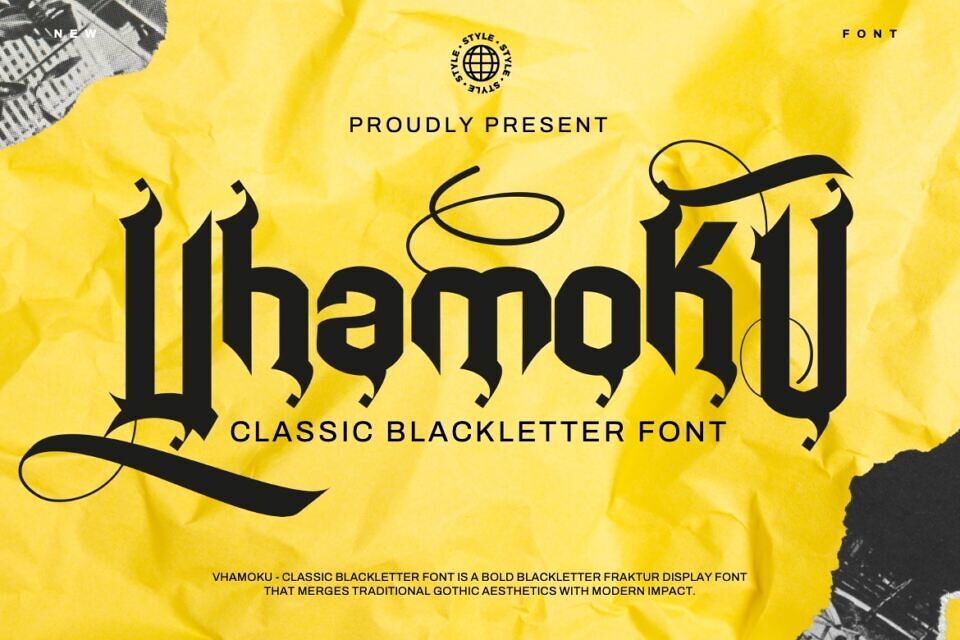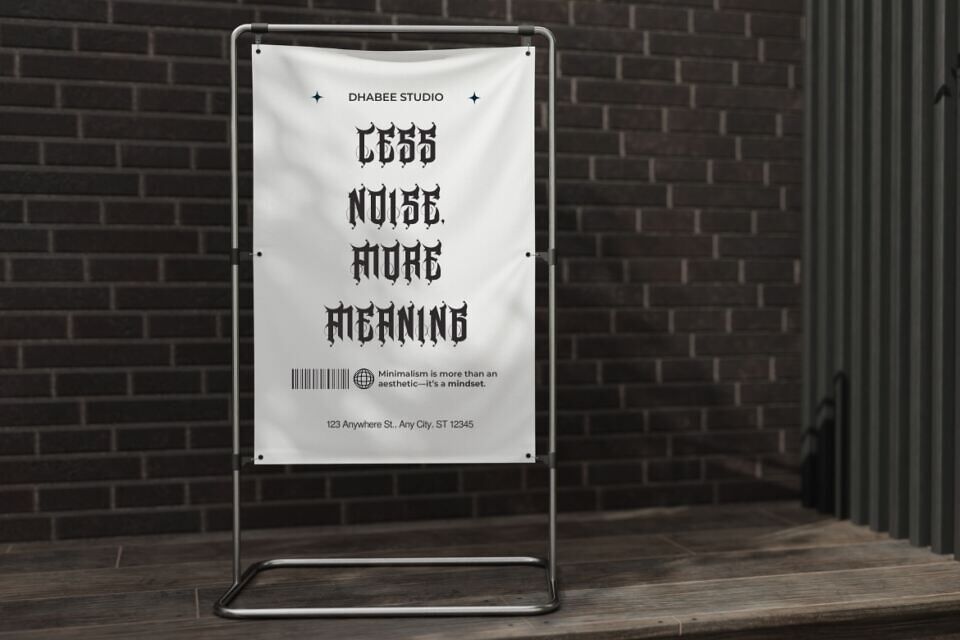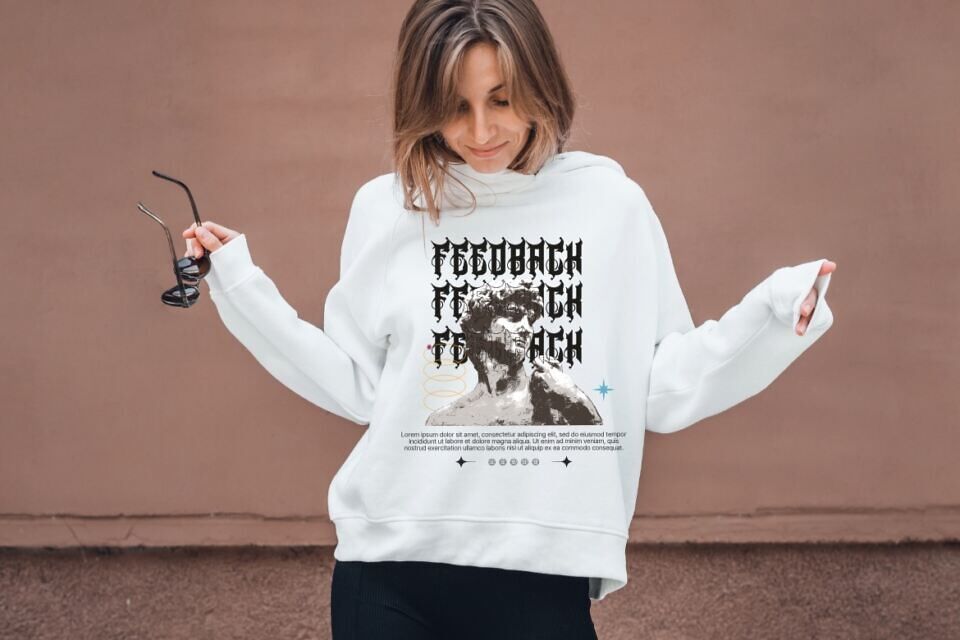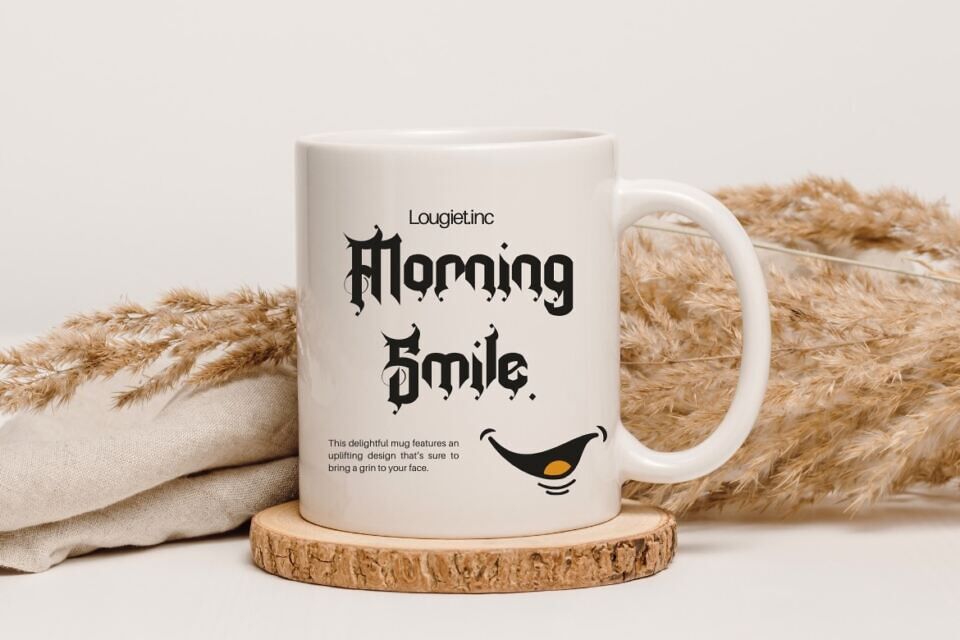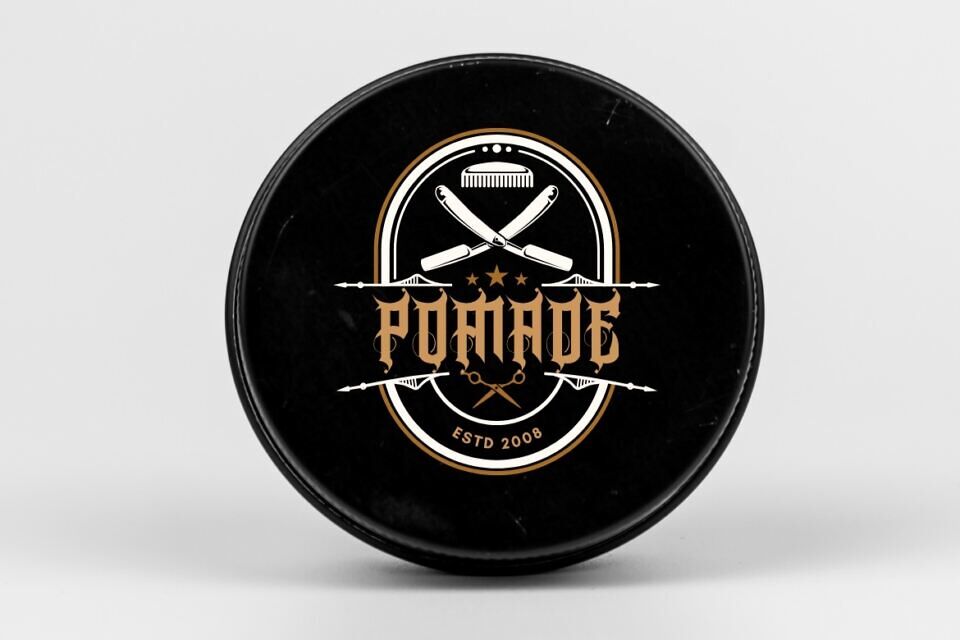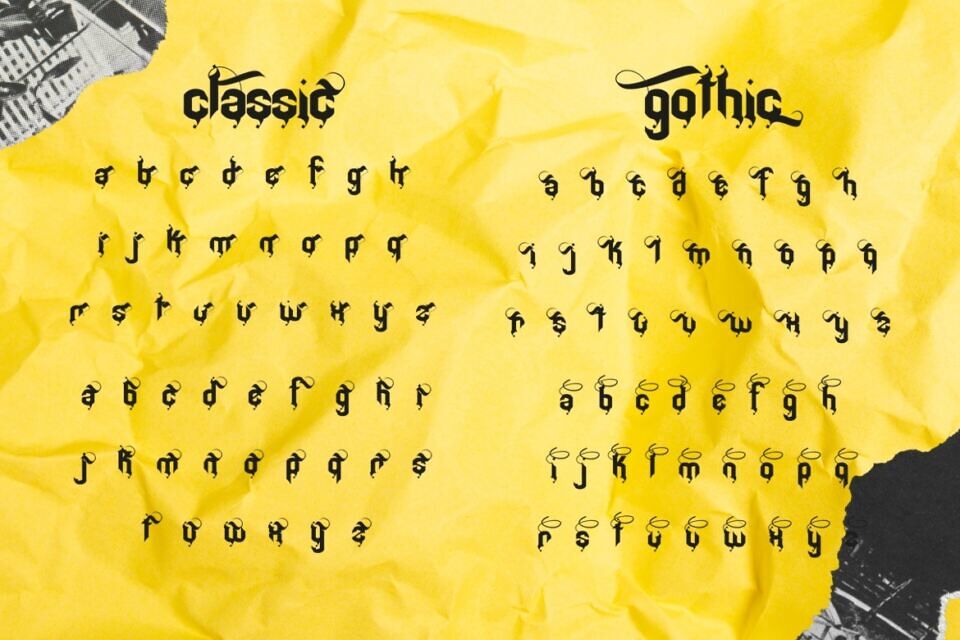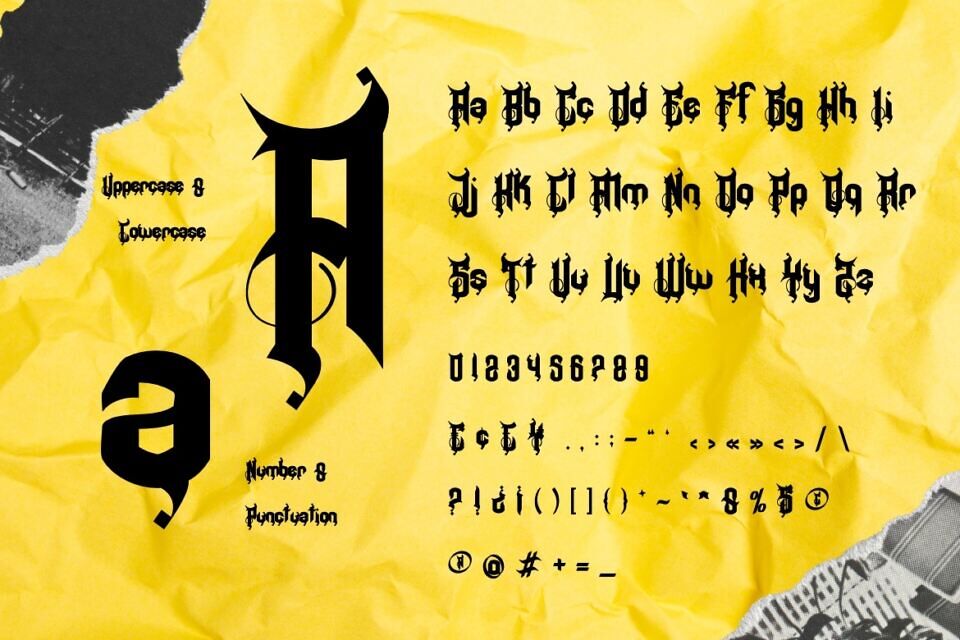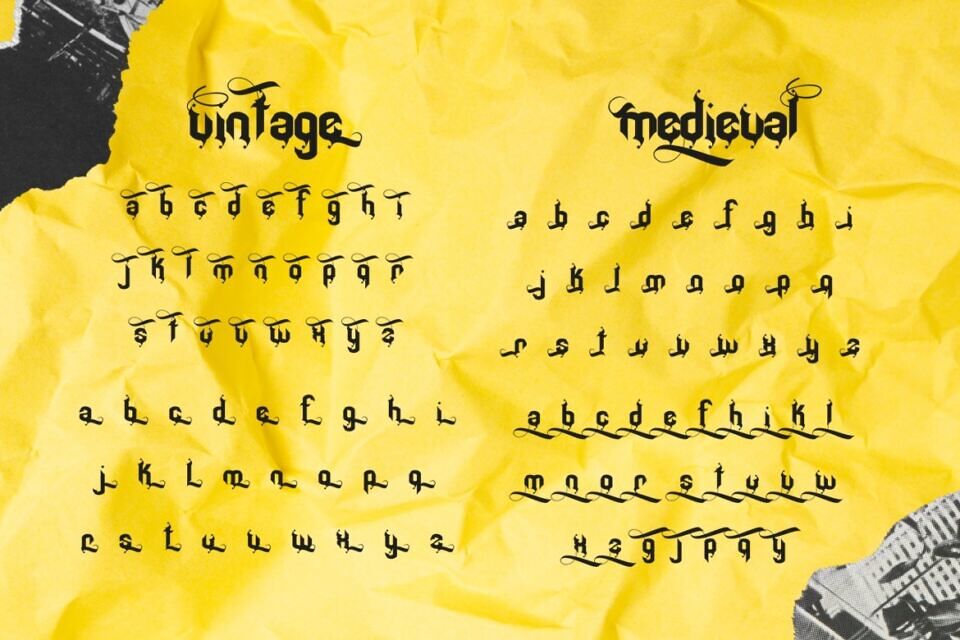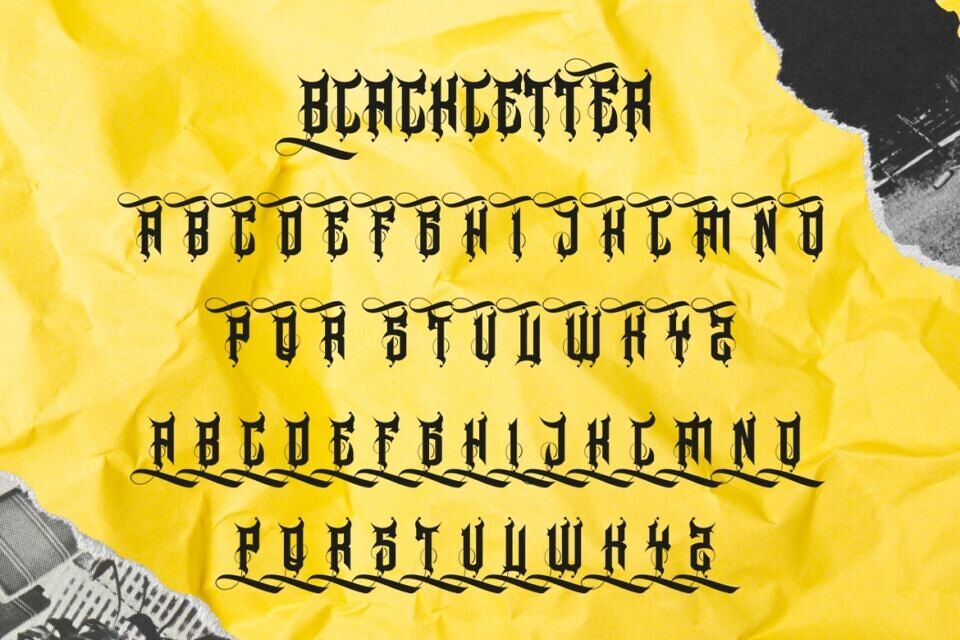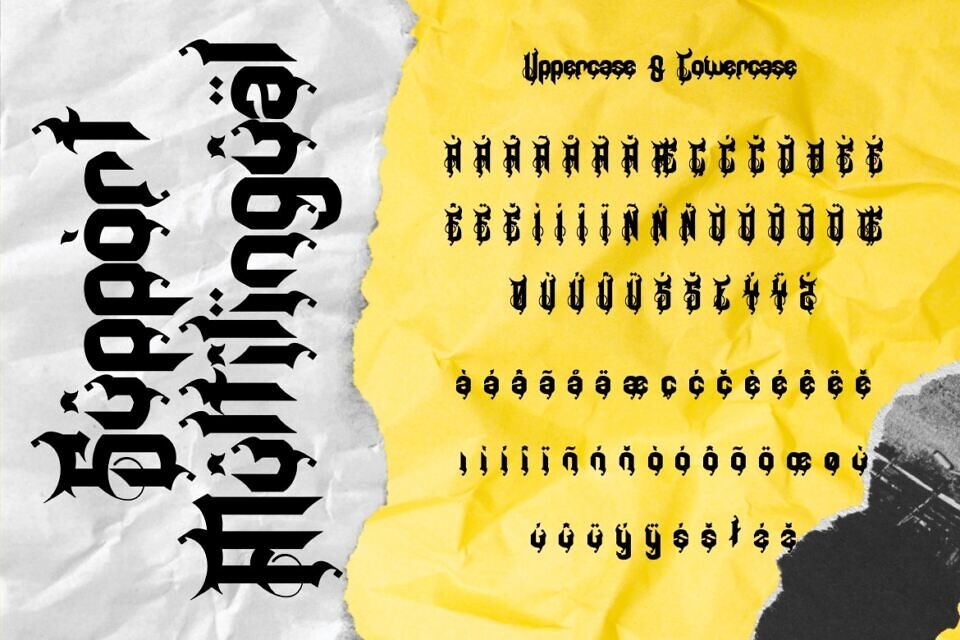
Vhamoku is a bold classic blackletter fraktur display font that merges traditional Gothic aesthetics with modern impact. Its intricate letterforms feature sharp angles, dramatic strokes, and striking contrasts, embodying strength, authority, and historical charm.
The bold weight enhances its commanding presence, making it ideal for designs that demand attention and sophistication.